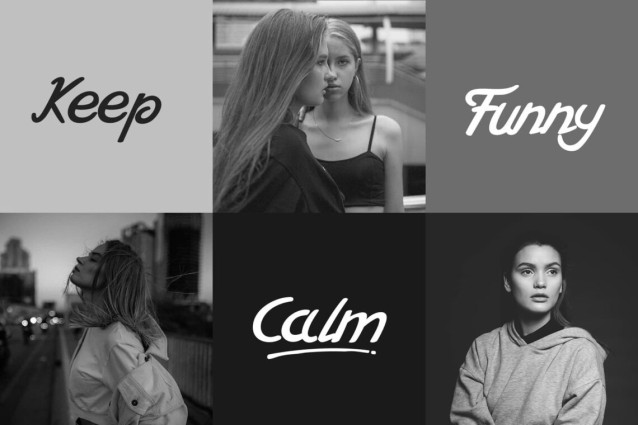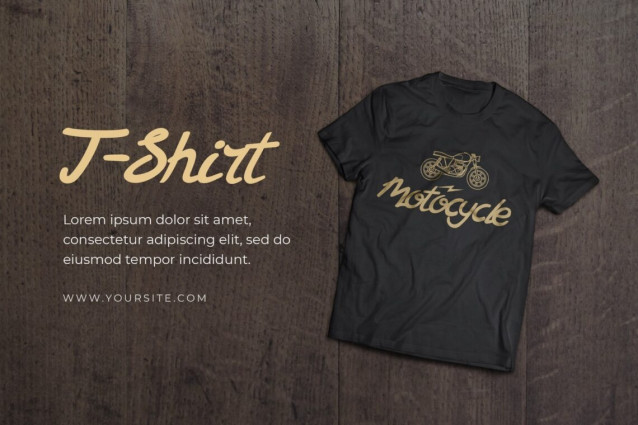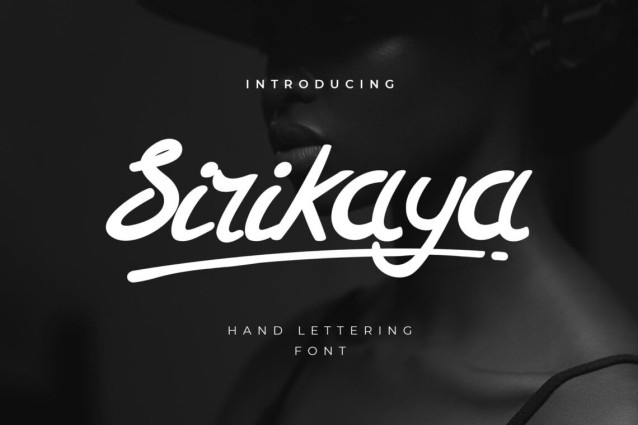
Sirikaya Handwritten Font
Sirikaya Handwritten Font is a font that has a signature and quasi font style which is a type of script font. This font also represents the characteristics of handwriting, which is a combination of basic fonts with different curves and shapes, so it will look natural and real. This font looked beautiful handmade brush font, with a bold weight perfect for adding some romance and charm to your designs. This script functions most strongly as a display or headline font. suitable for logo, logotype, branding, fashion, label, book cover, t-shirt, social media post, and others.